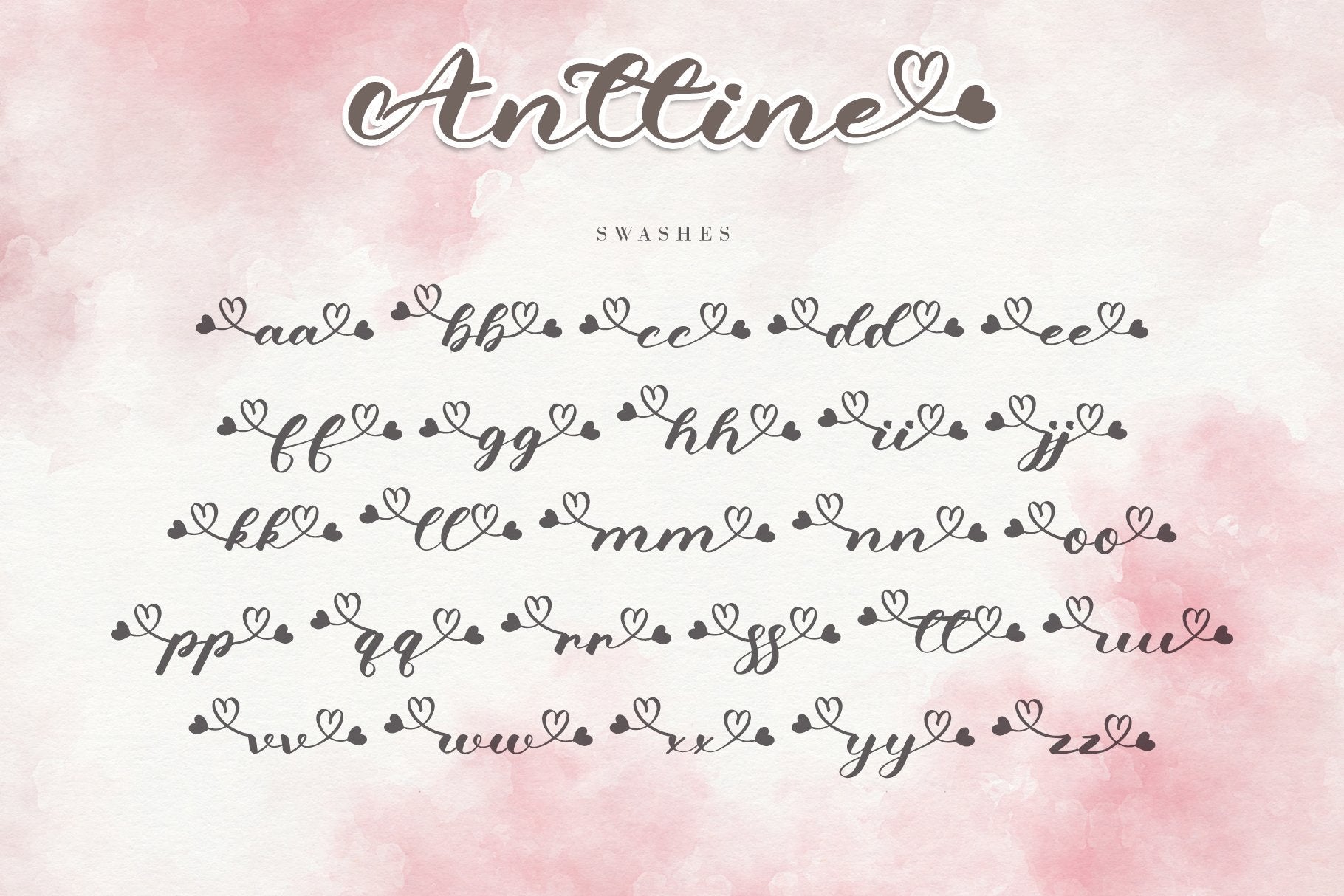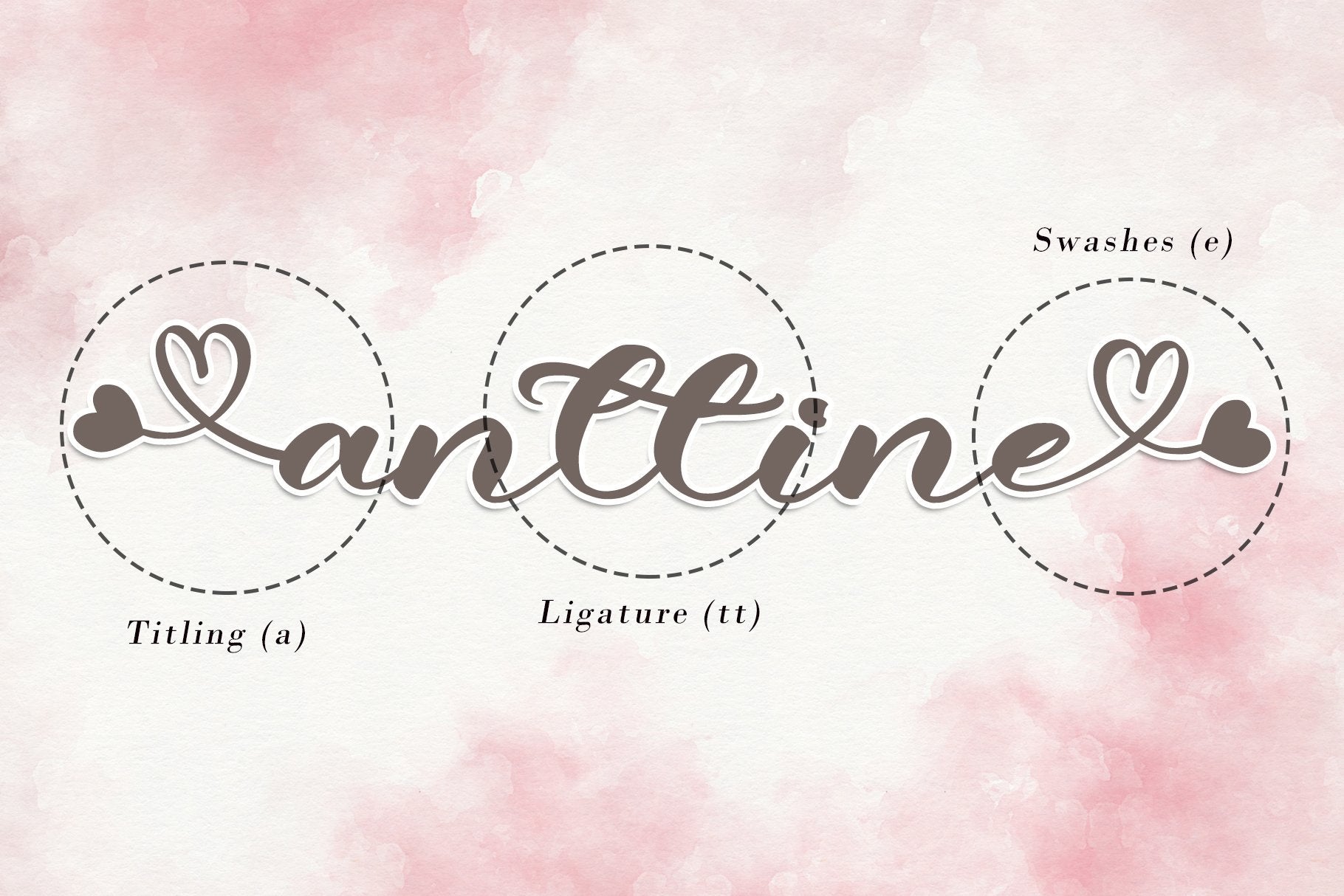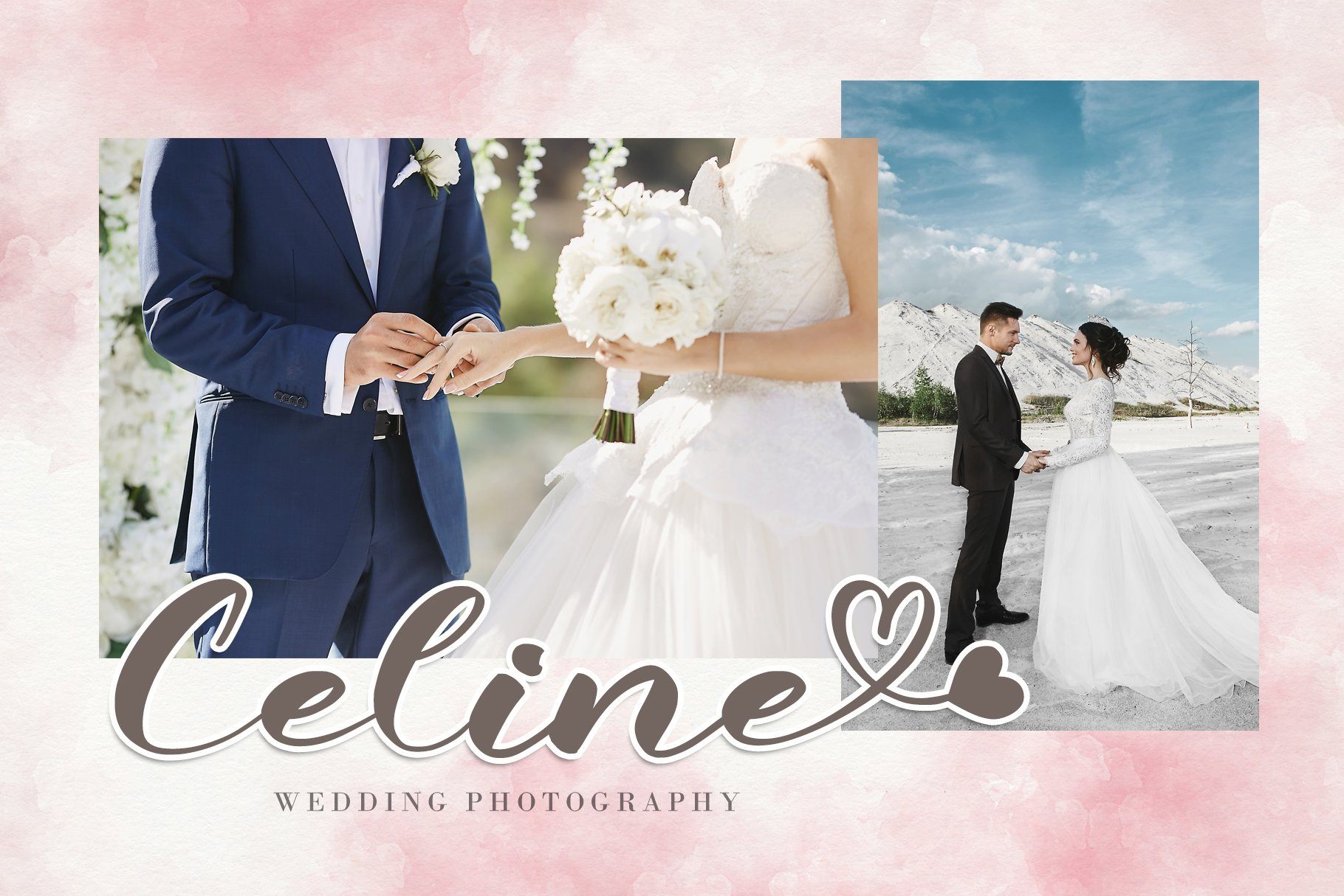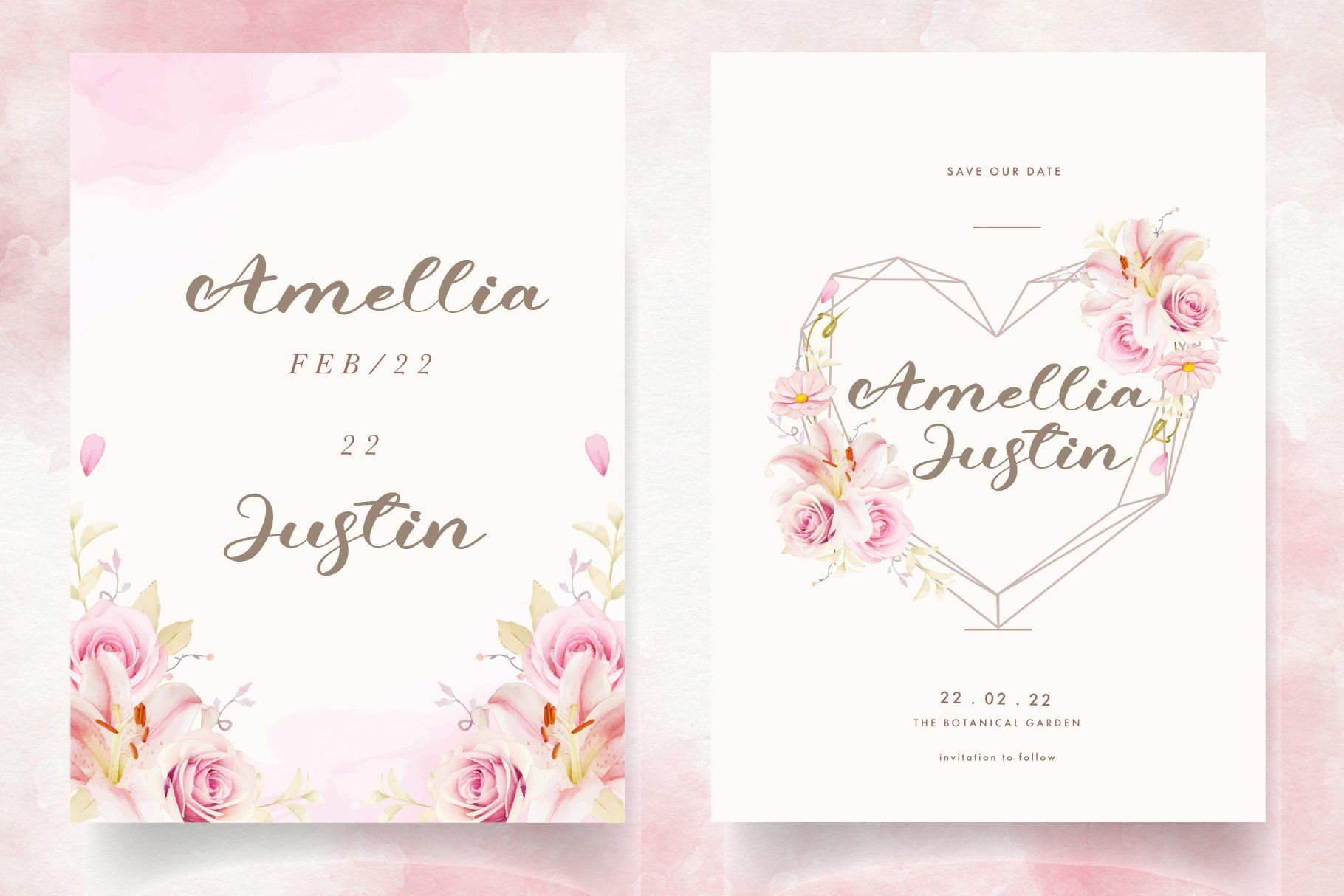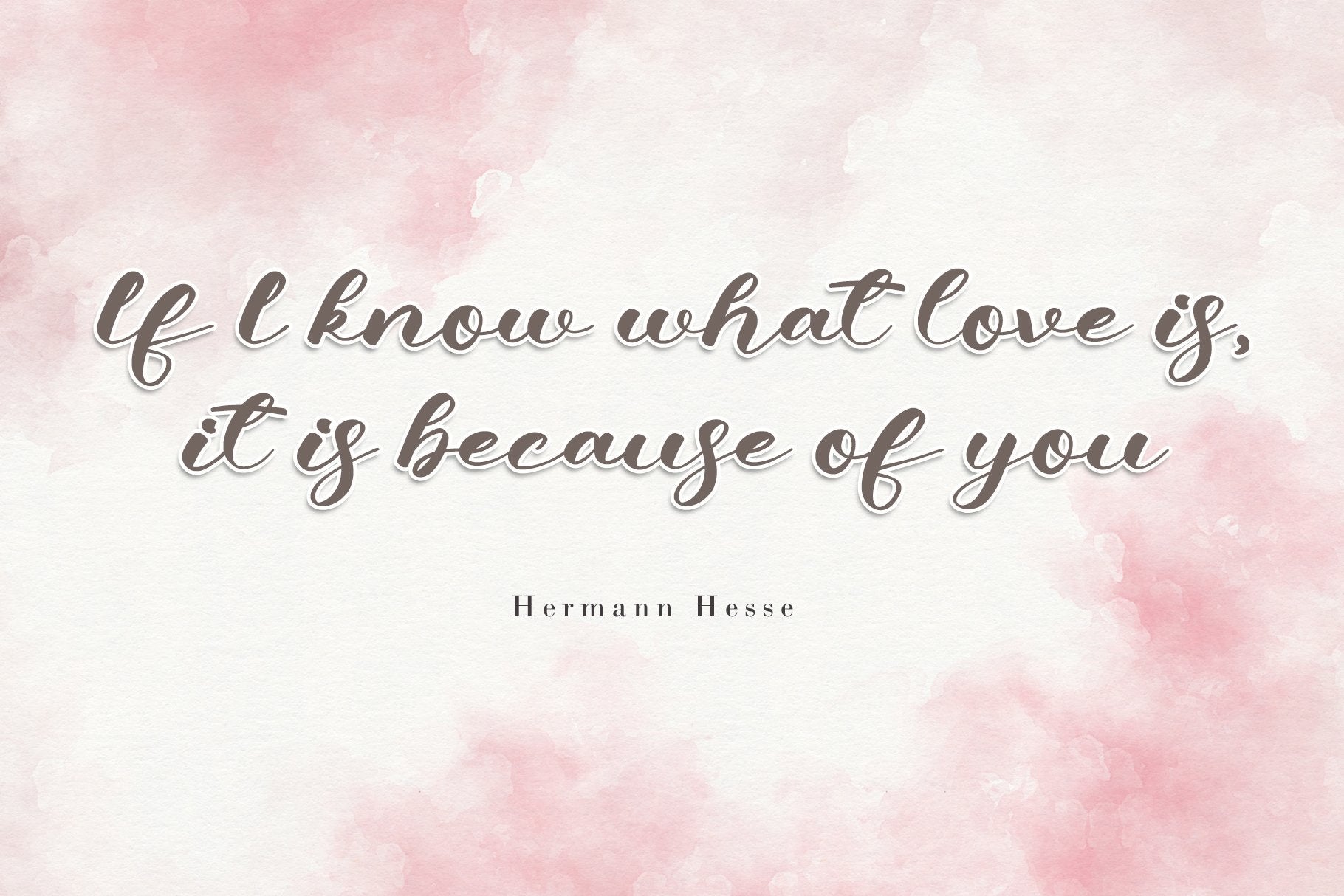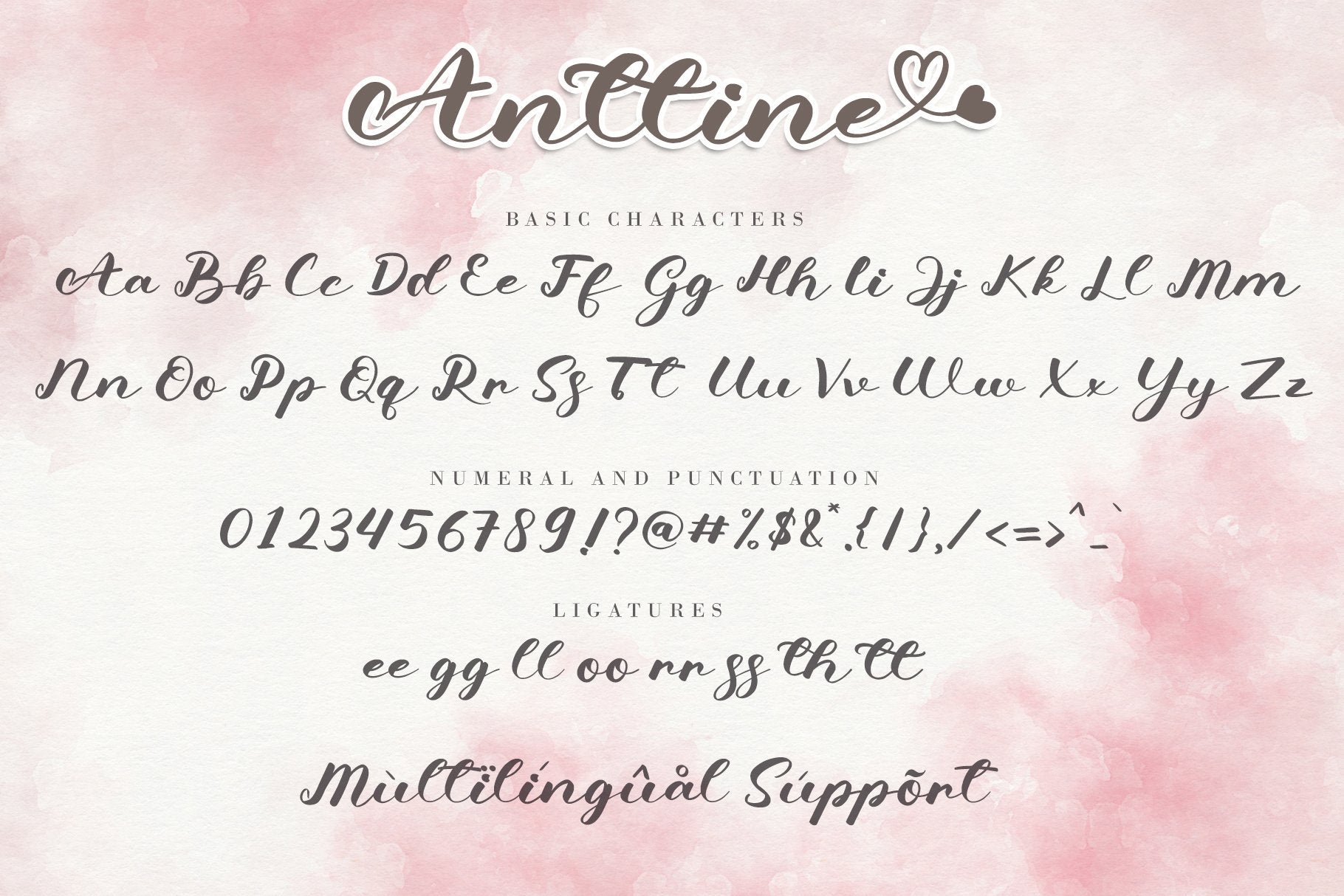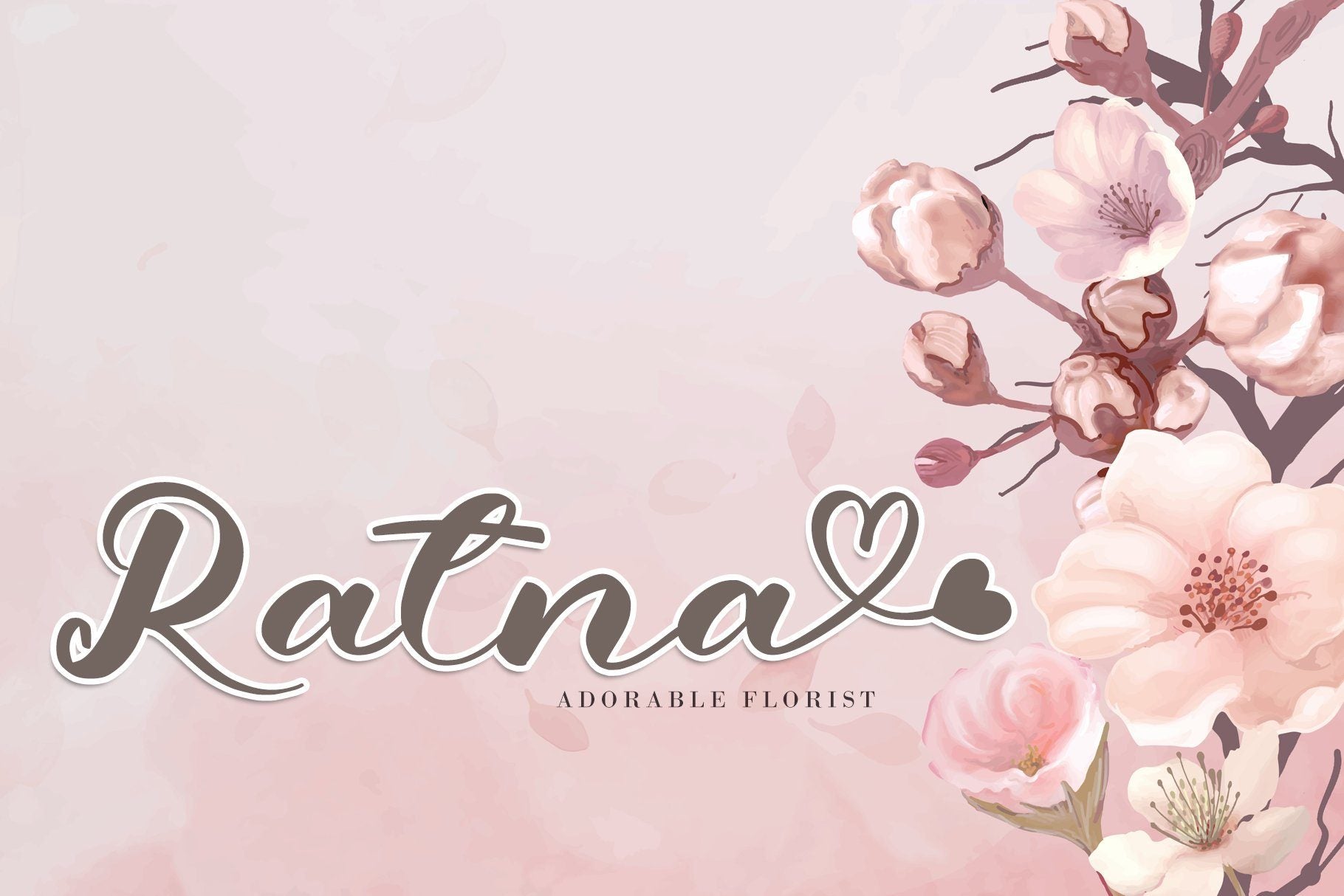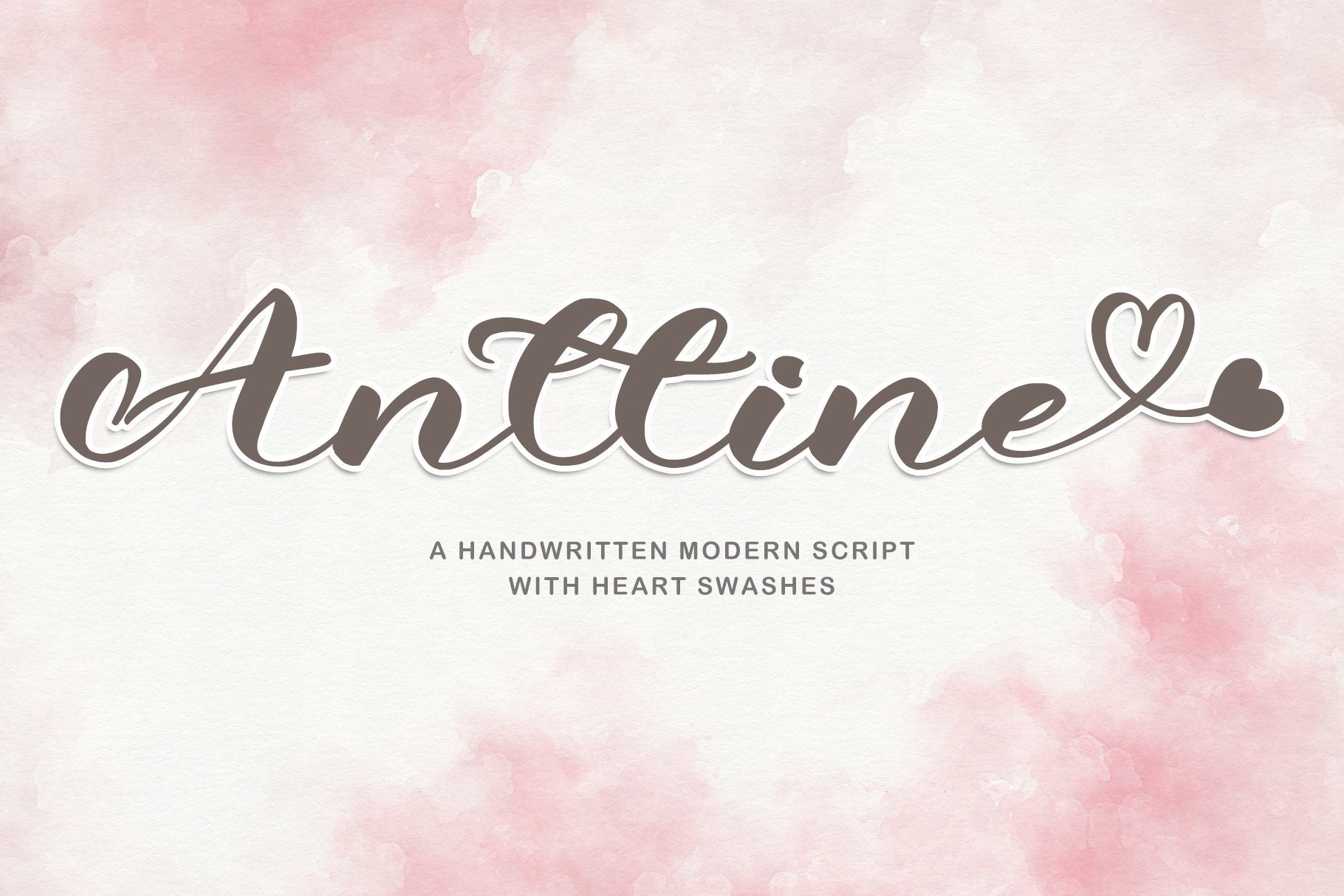
Anttine
About Anttine
Anttine is a romantic and sweet calligraphy typeface with characters that dance along the baseline. It will add a luxury spark to any design project that you wish to create! This font is PUA encoded which means you can access all of the amazing glyphs and ligatures with ease! Files Included : Anttine Regular TTF/OTF/WOFF Anttine Italic TTF/OTF/WOFF Anttine Features : (a-z) titling, (a-z) swashes, ligatures Support multilingual; ä ö ü Ä Ö Ü ß ¿ ¡ This font is PUA encoded which means you can access all of the playful glyphs, swashes, and ligatures with ease! Please kindly message us for any questions or issues about our product. Thank you for your purchase and have a wonderful day! With Love, AEN Creative Studio.